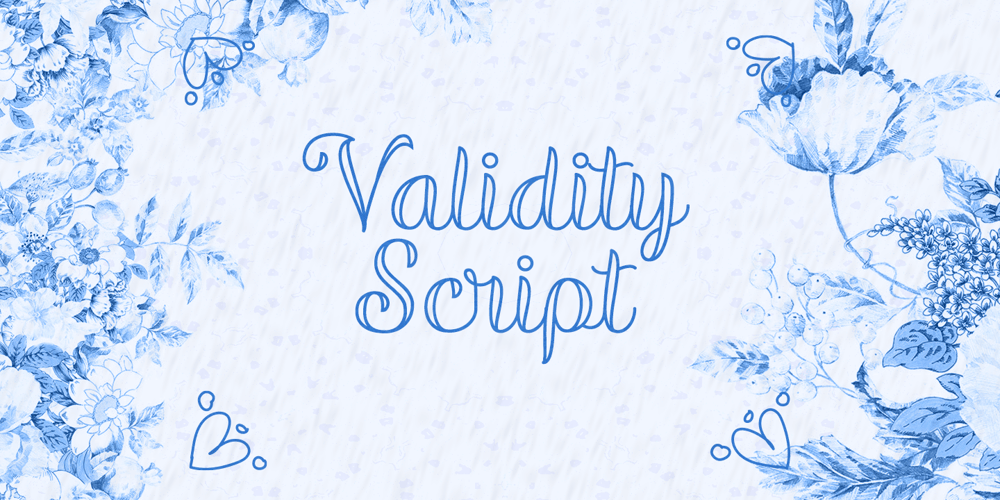
Validity Script Font Family was designed by Måns Grebäck, Misti Hammers and published by Mans Greback. Validity Script contains 6 styles and family package options. Validity Script is a cute, outlined handwriting font family.The typeface was drawn and developed by Måns Grebäck and Misti Hammers during 2019. With swirly letters and charming wilderness it is perfect for a crafty project or an invitation with a personal touch.It comes in three weights and each weight as Italic, totaling in six styles: Thin, Thin Italic, Regular, Regular Italic, Bold, Bold Italic.Each font of this family is of high-quality and contains OpenType features. The fonts have extensive ranges of glyphs; they support all Latin-based European languages, contain numbers as well as all symbols and characters you’ll ever need.